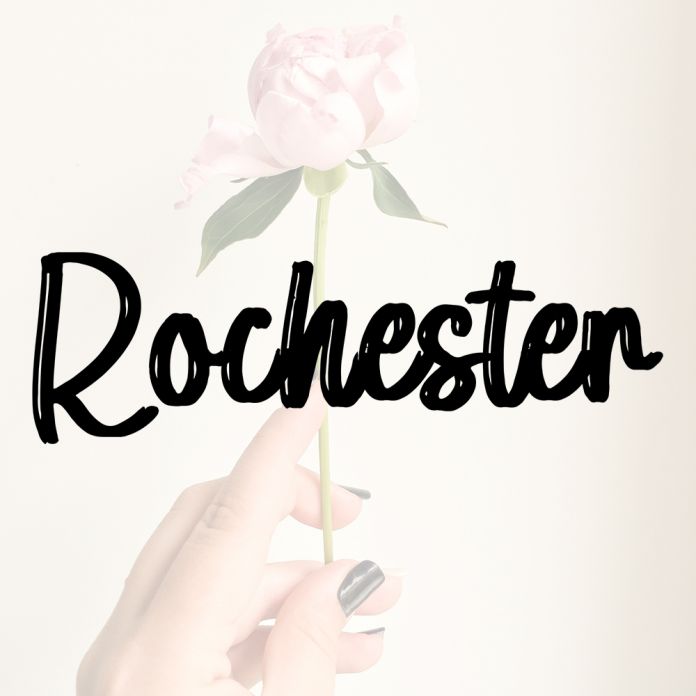
Rochester is a beautifully fluid script font that captures the carefree spirit of the sea. With sweeping ascenders and delicate ligatures, it’s a perfect choice for beach-themed designs, nautical branding, summer invitations, and stylish packaging. Nautica brings a whimsical yet refined energy to your creative work.